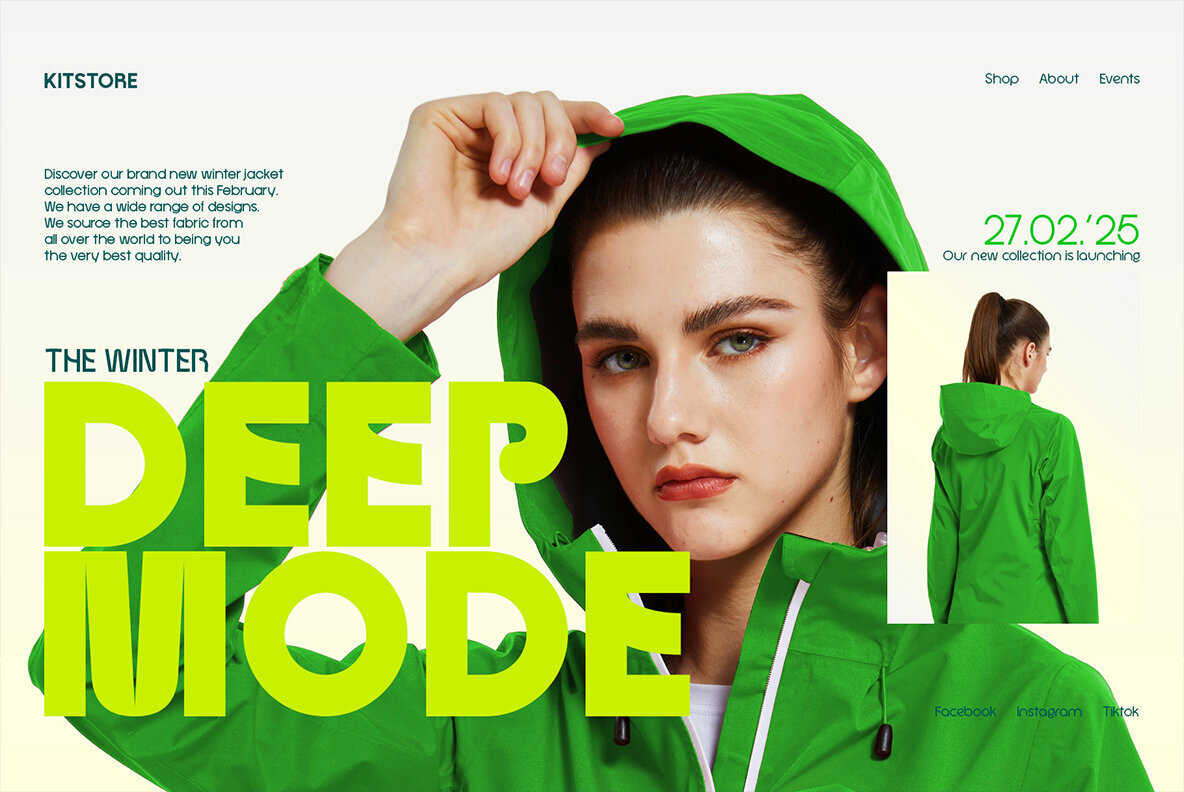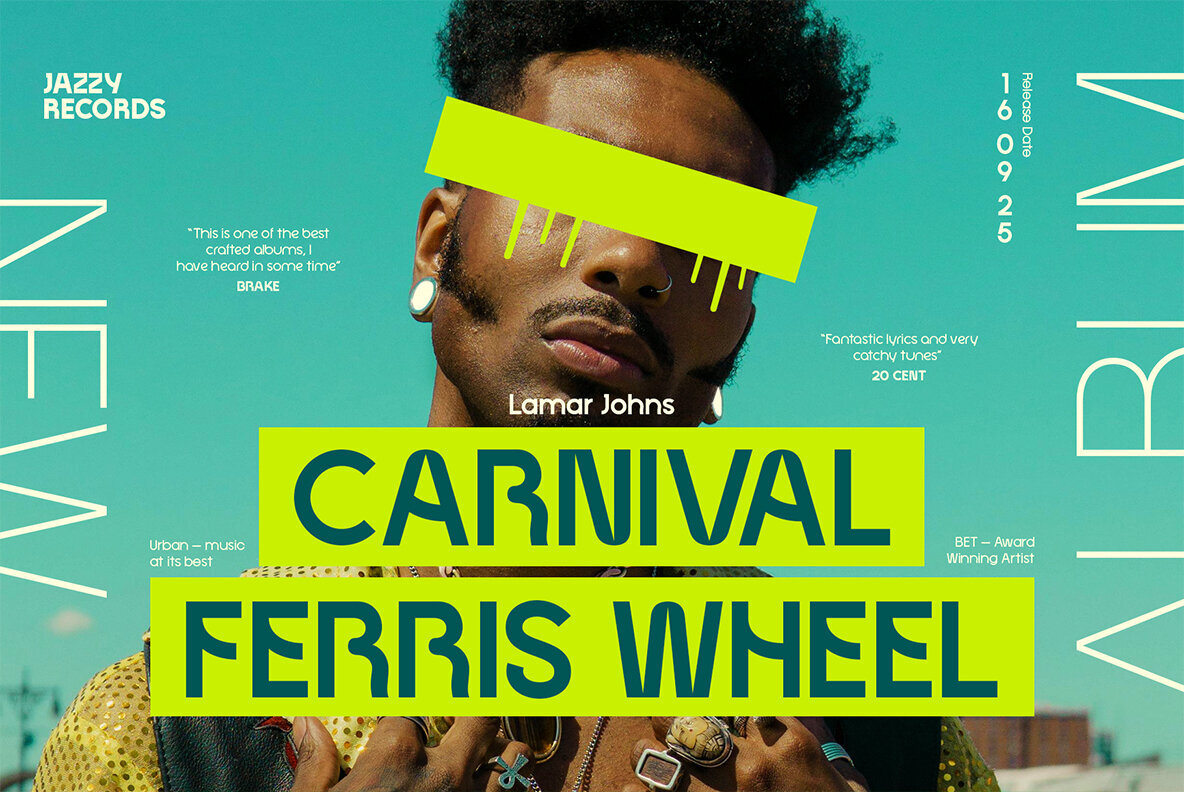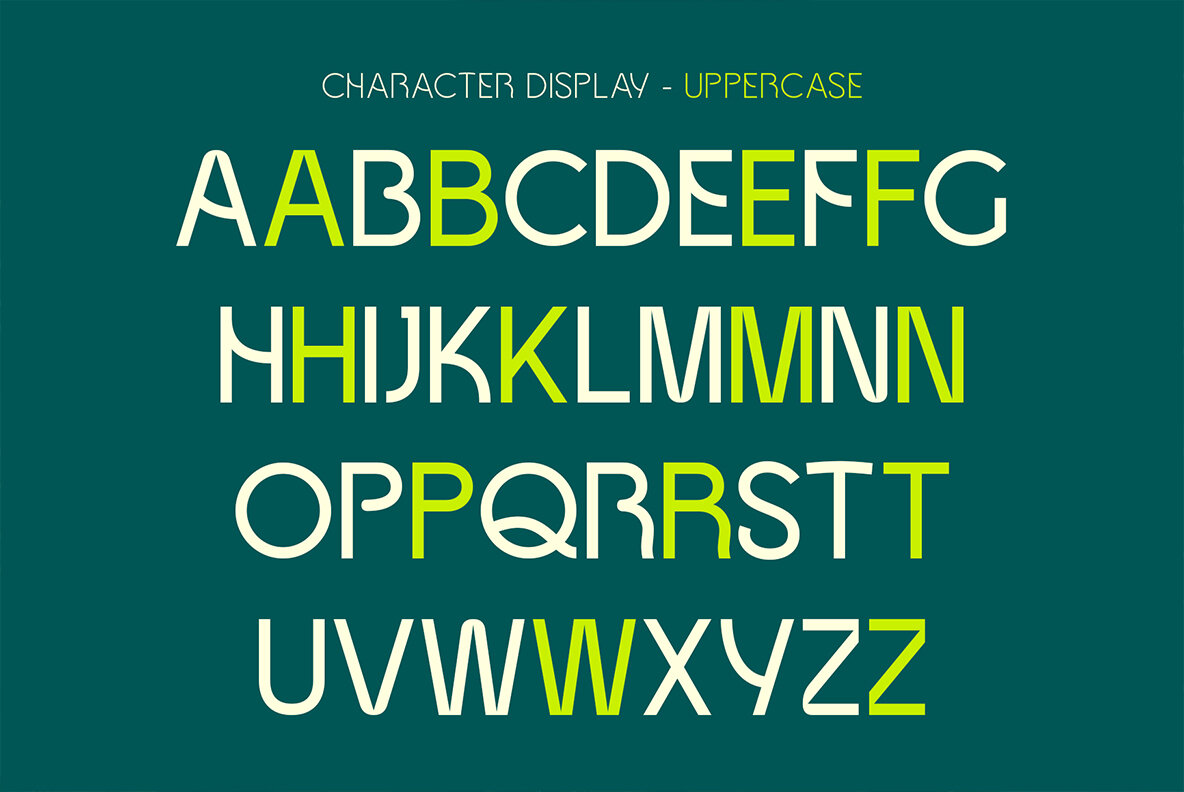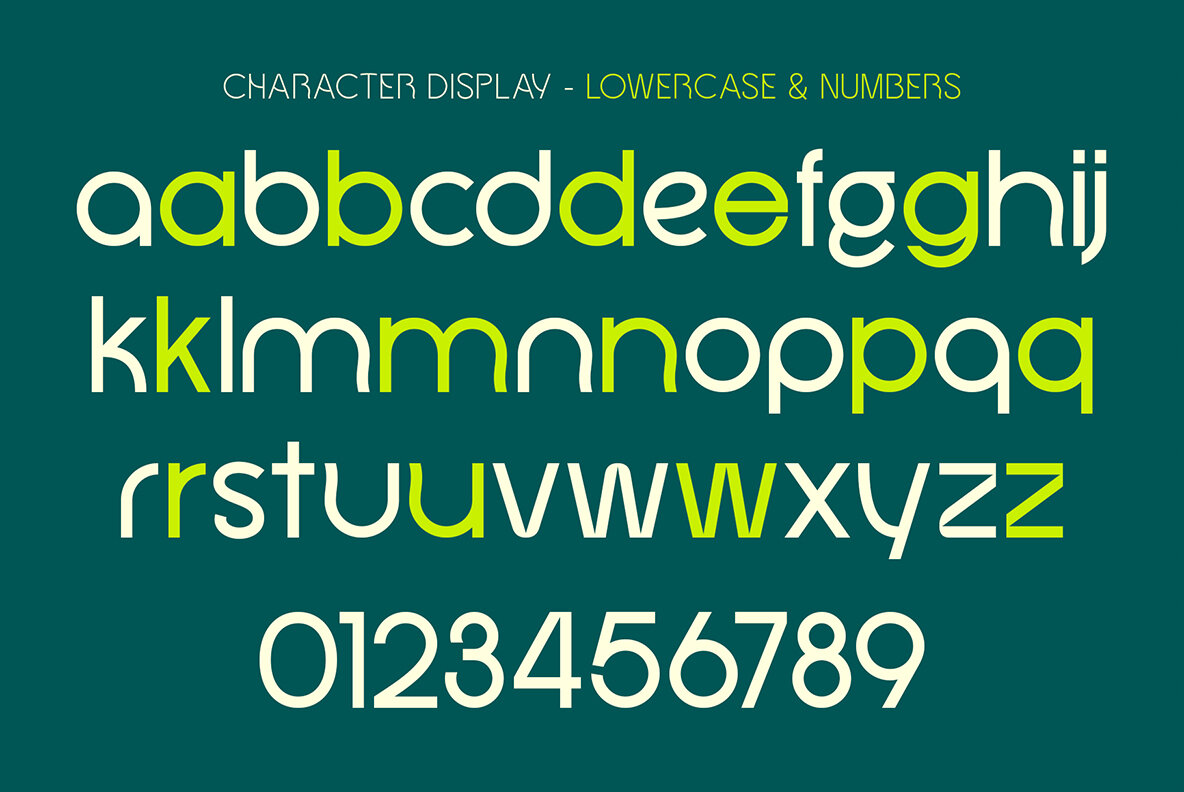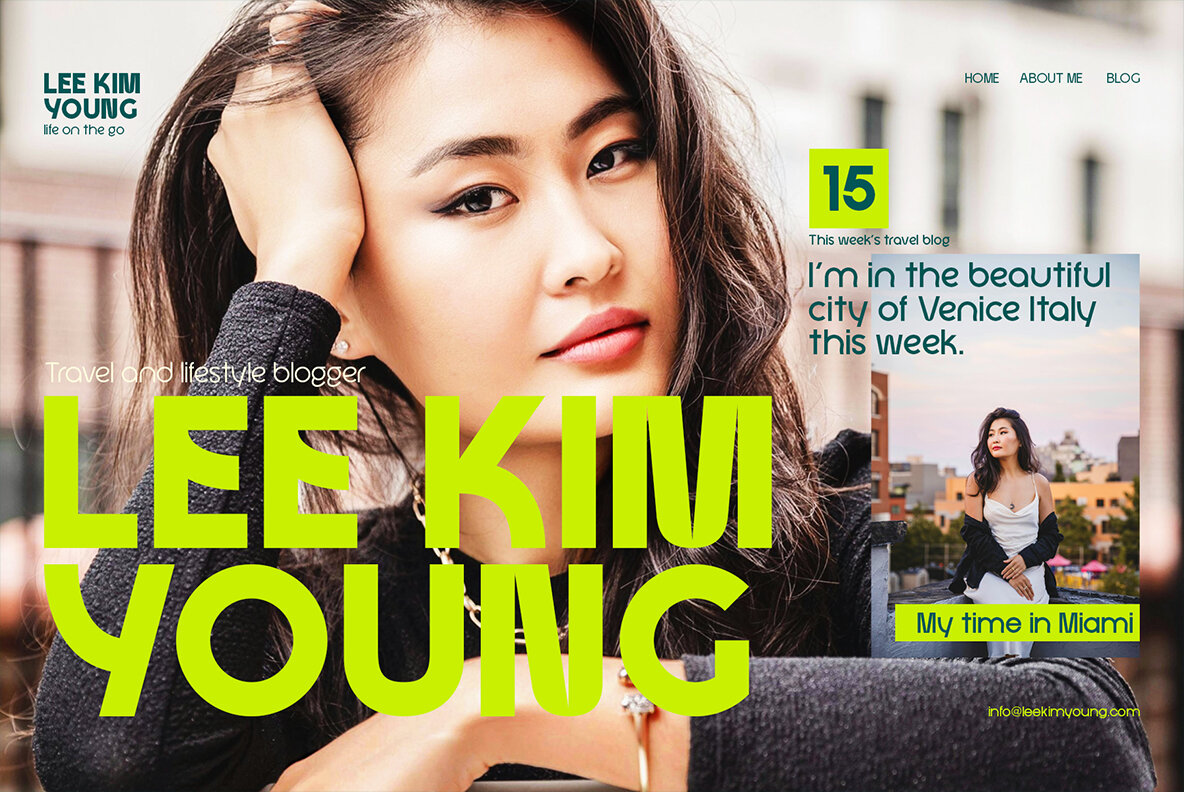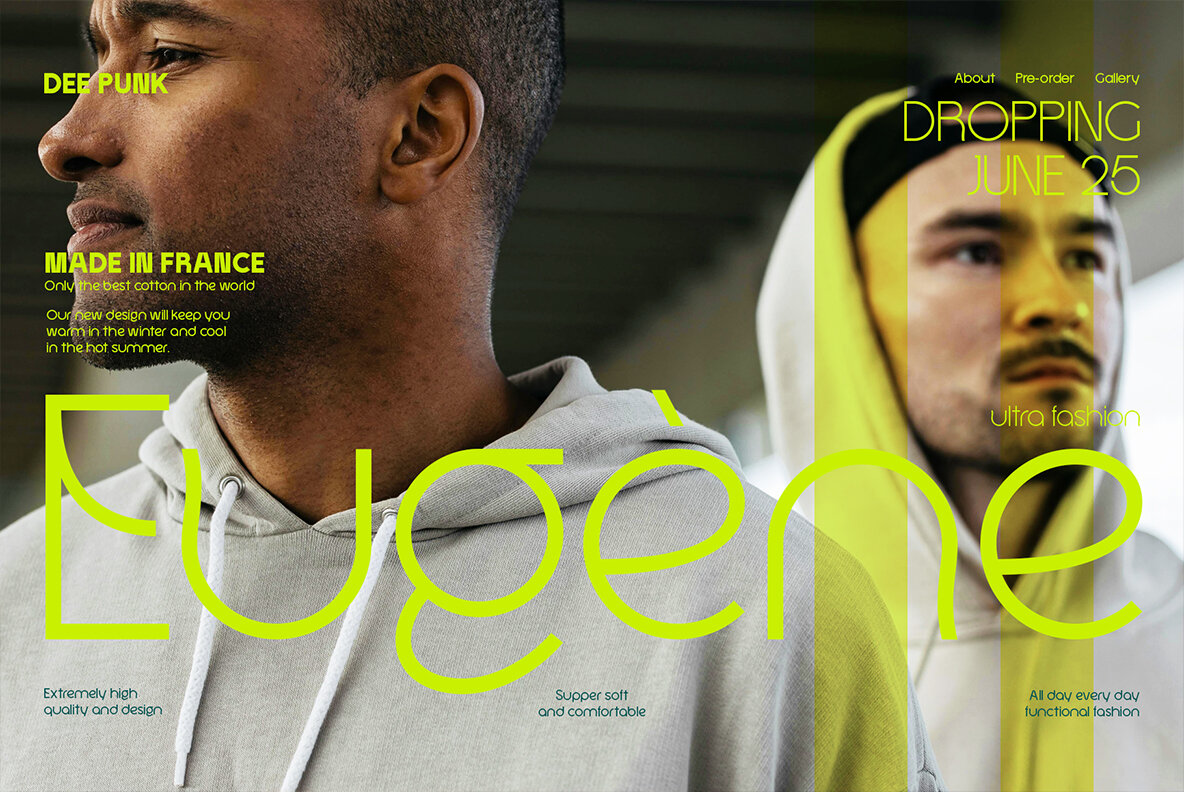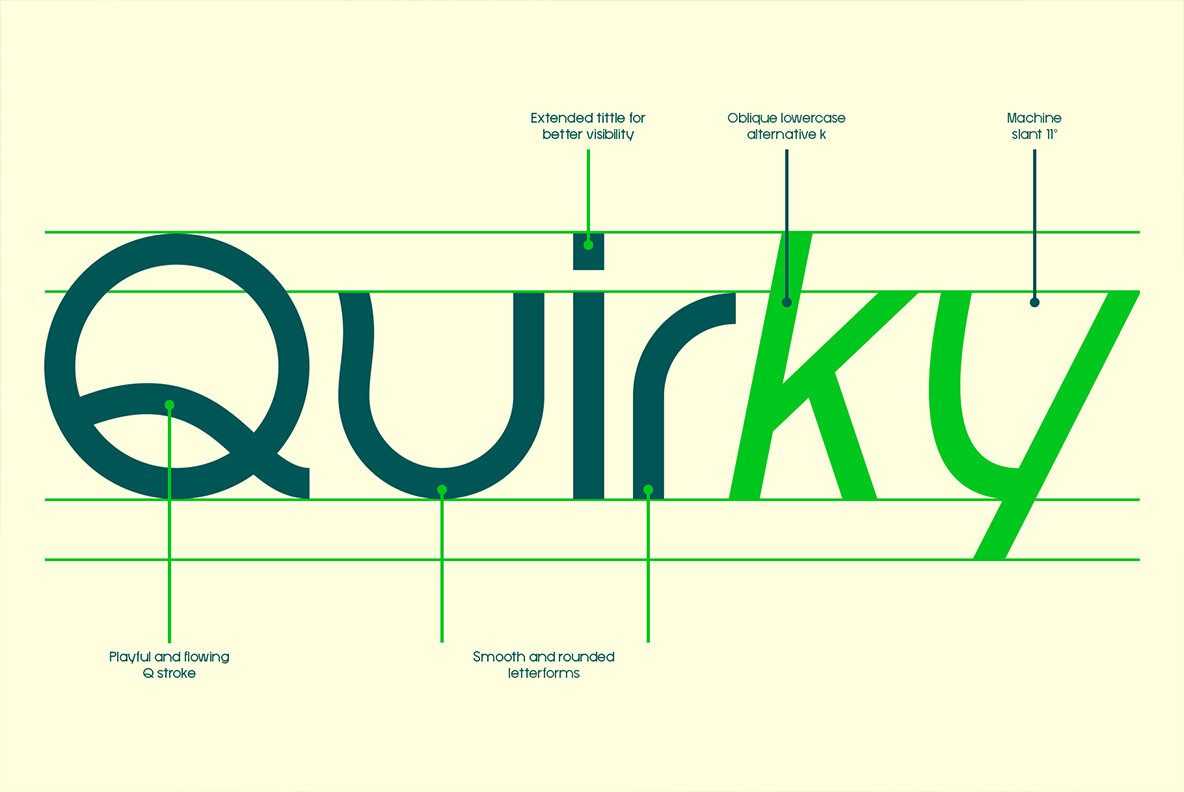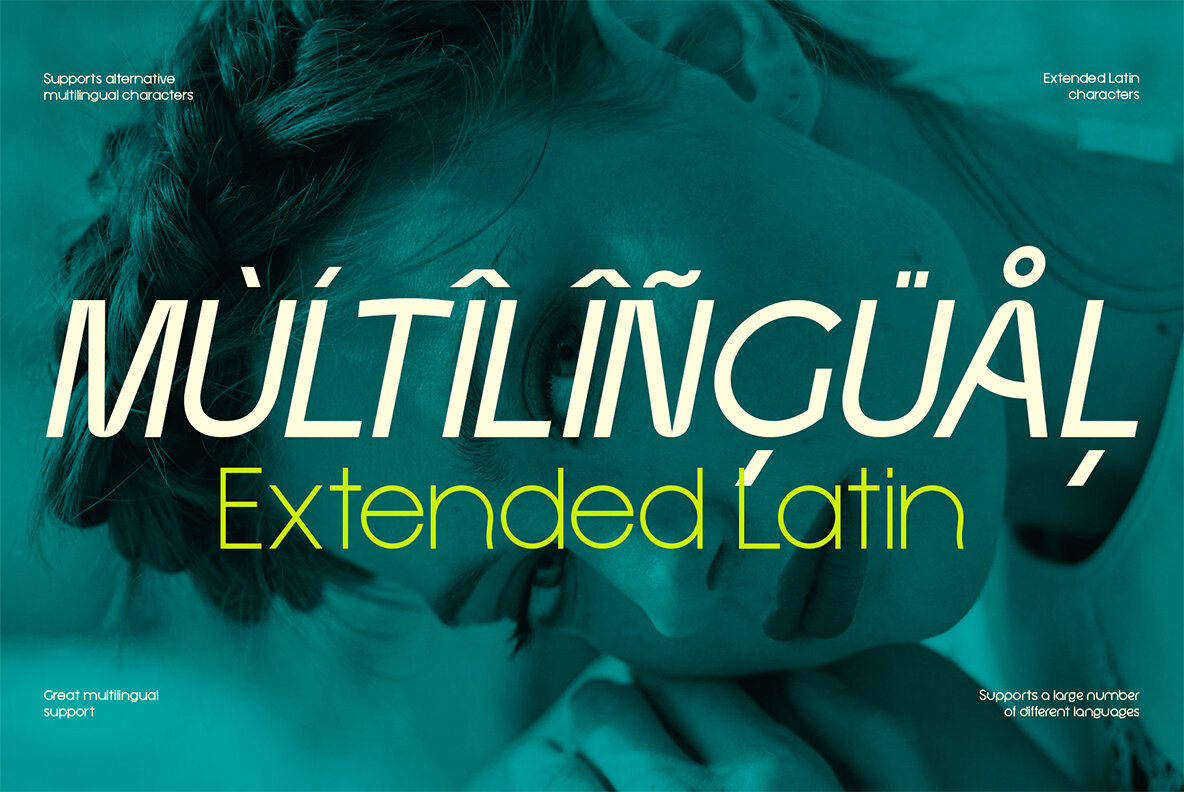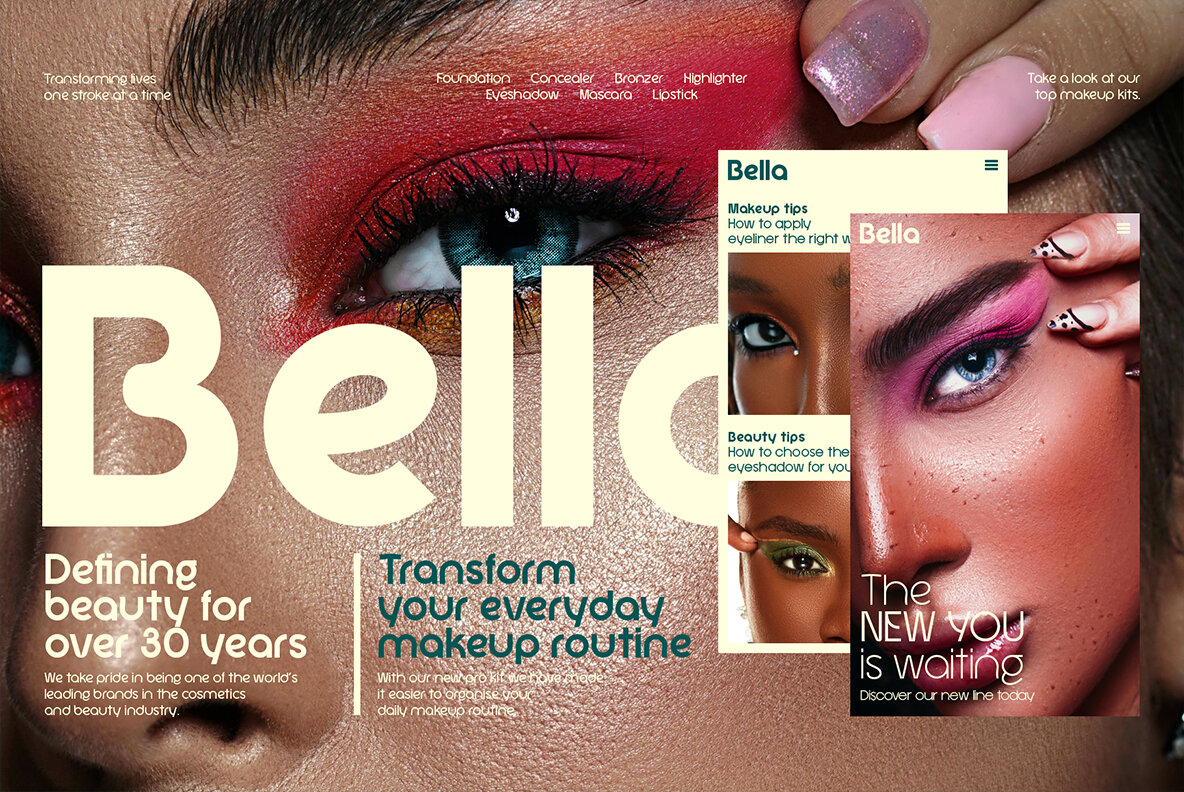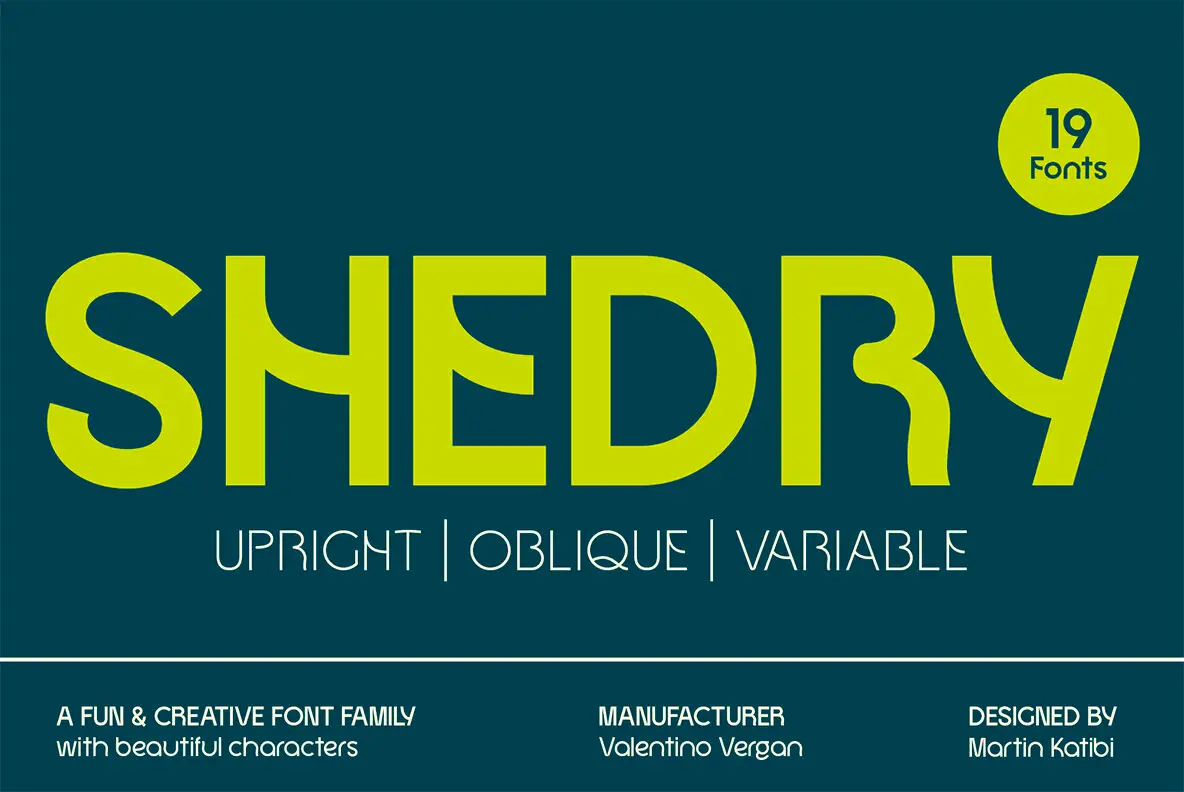
Shedry Font
Shedry is a versatile font family designed to offer both playful and professional styles, perfect for graphic designers and advertising agencies seeking creative flexibility. With its dual nature, Shedry can be utilized for eye-catching headlines and displays, or easily transformed into a more formal typeface by switching to its alternate characters. This makes it an ideal choice for those who need a font that adapts to various design needs.
This font family includes 9 weights, each with a corresponding oblique version, allowing for diverse typographic expressions. The variable version provides additional flexibility by letting designers manually adjust the weight or slant, enhancing creative control. Shedry also features robust OpenType capabilities, enabling the use of ligatures and alternate letters, ensuring a rich typographic experience. Furthermore, its extensive multilingual support, including Extended Latin characters, allows designers to create in a variety of languages, enhancing the font's global applicability.